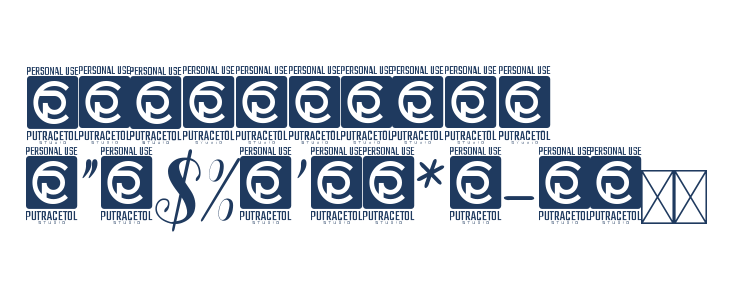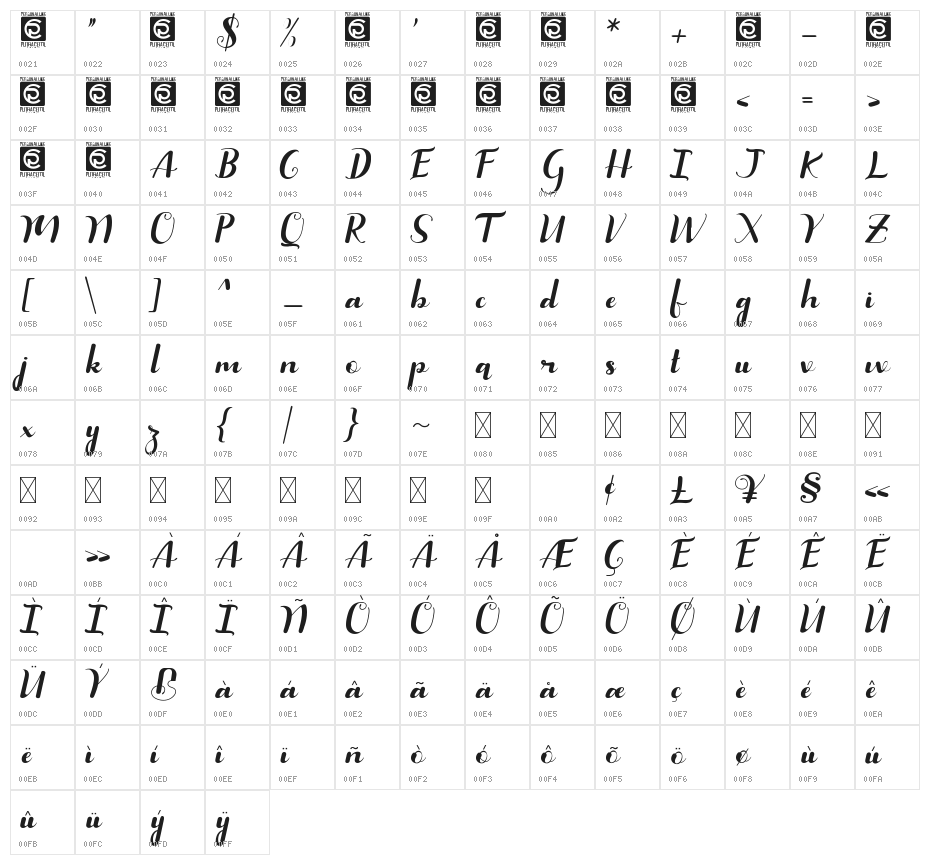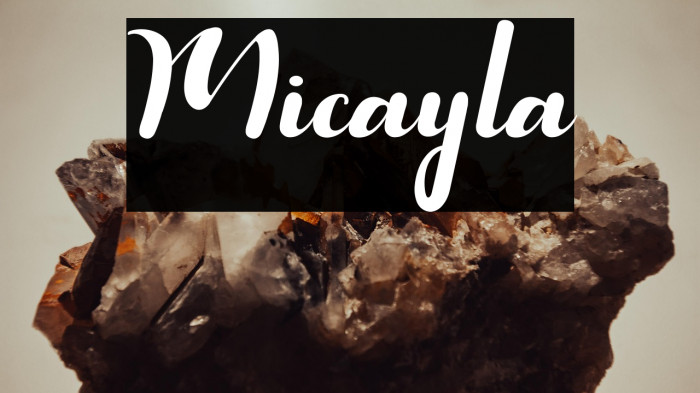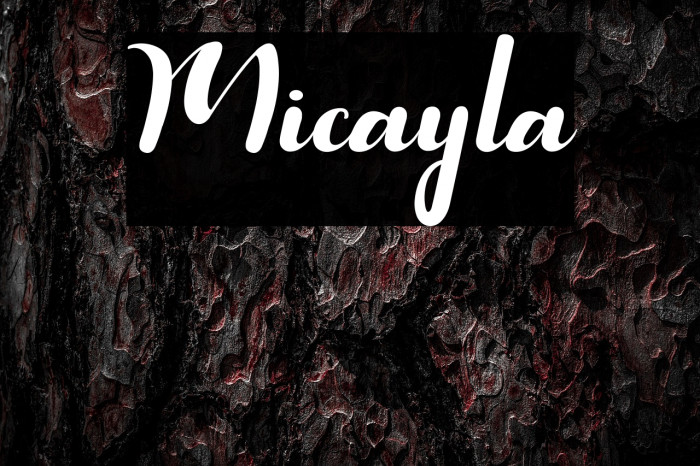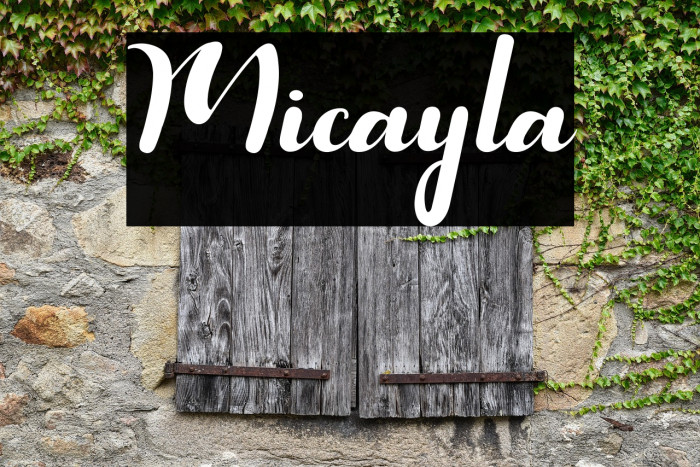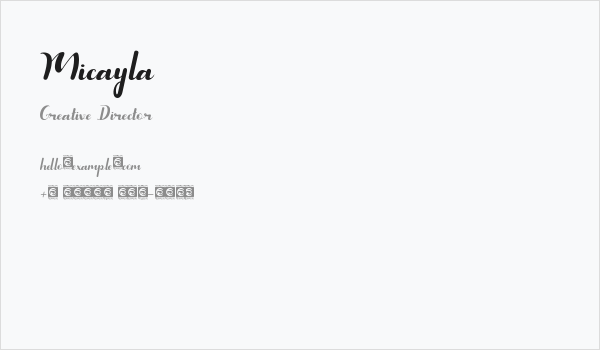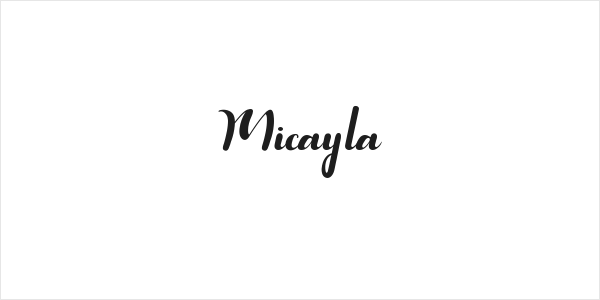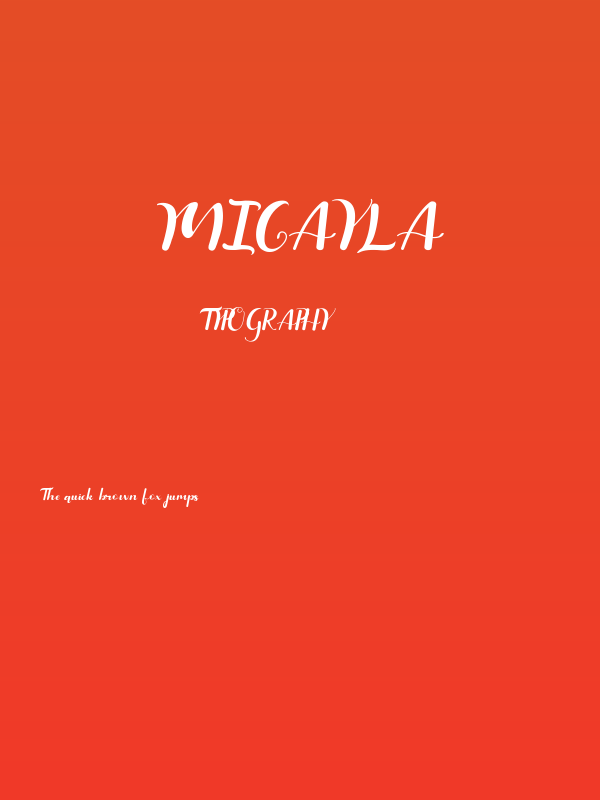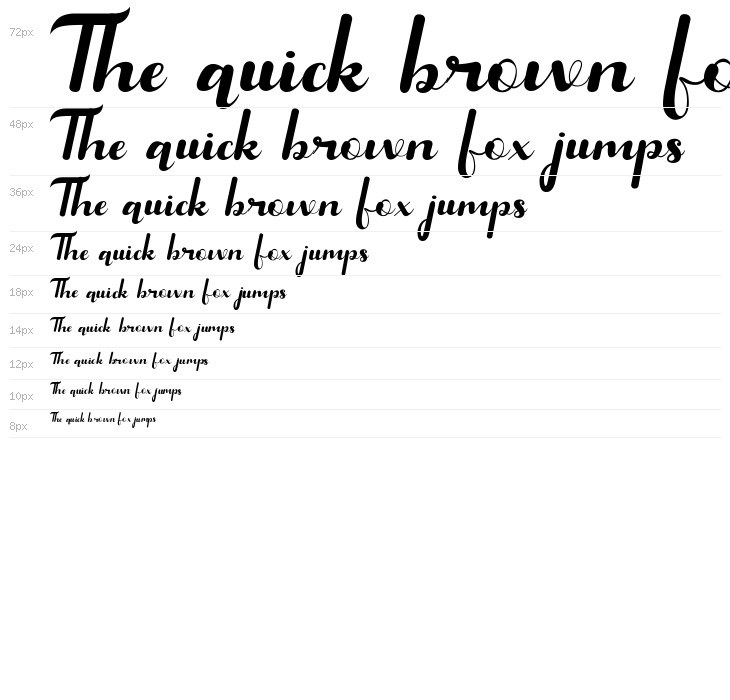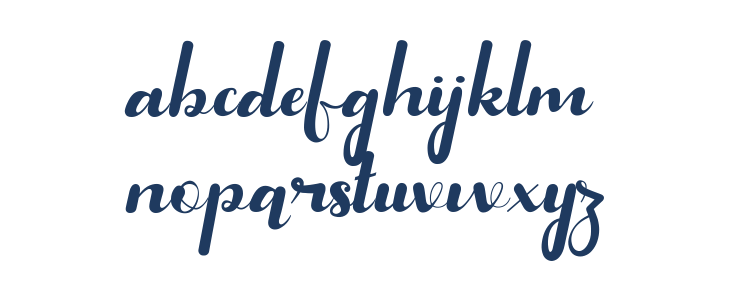
Micayla Font
Micayla Description
This font features a dynamic and flowing script style that combines elegance with a touch of modern flair. The uppercase letters are characterized by sweeping curves and flourishes, giving them a sophisticated and artistic appearance. The lowercase letters maintain a consistent flow, with smooth transitions and rounded forms that enhance readability. The numerals and special characters are designed to complement the overall style, featuring similar curves and strokes. This font is ideal for creating eye-catching designs that require a personal and artistic touch.
| Use Case | Logos, Headlines, Decorative text |
| Proposed Projects | Ideal for wedding invitations, branding, logos, and decorative headings. |